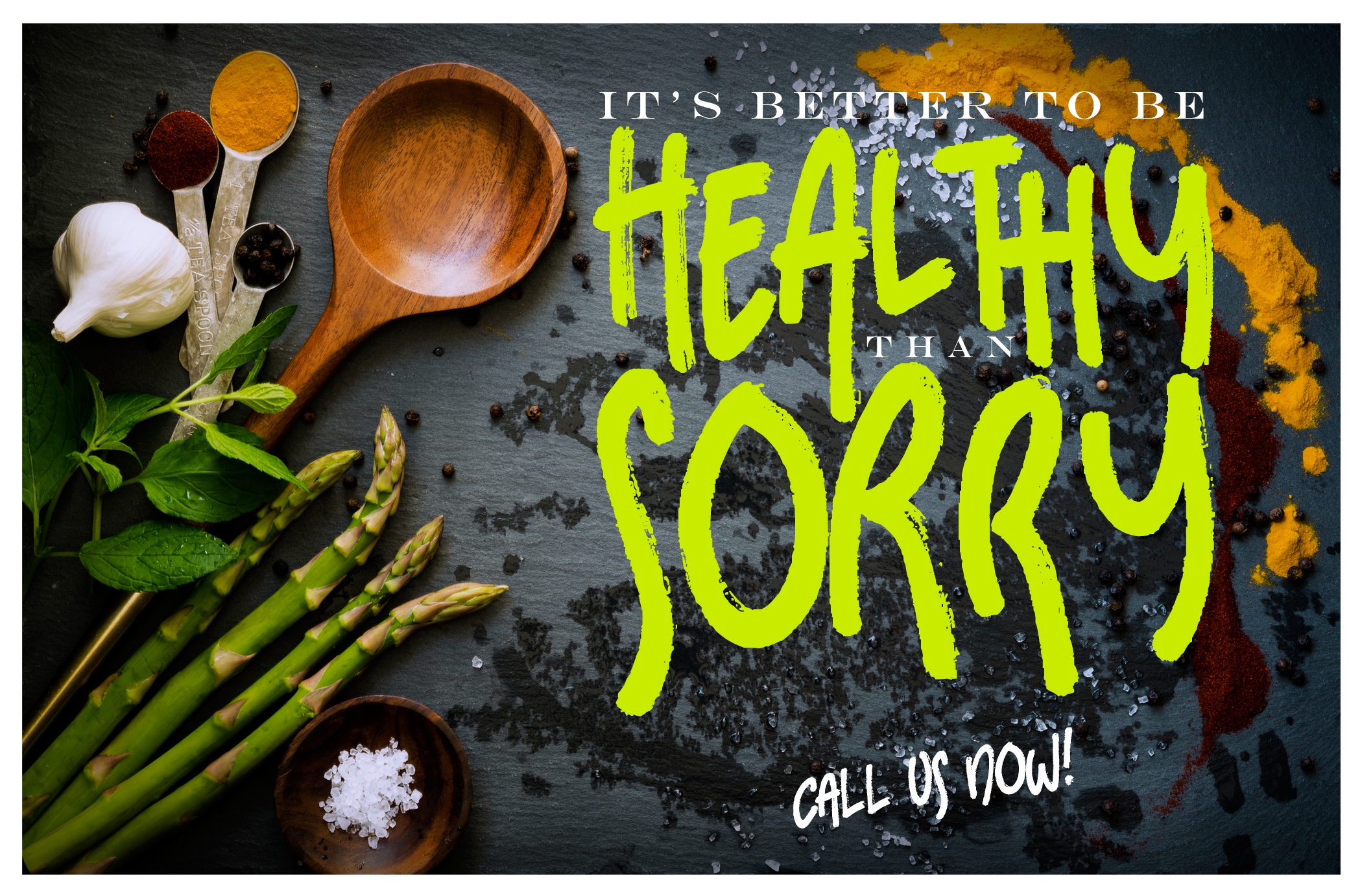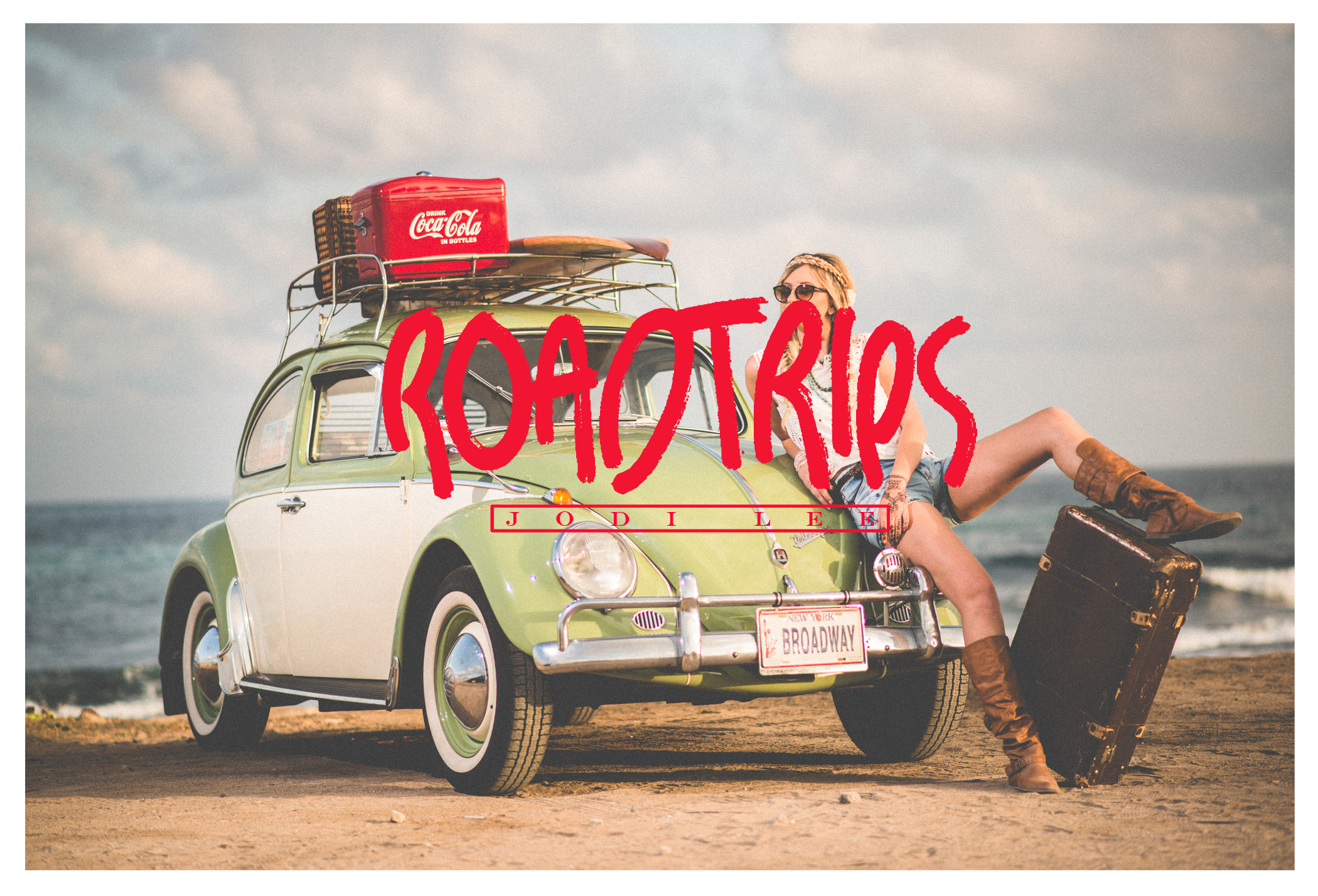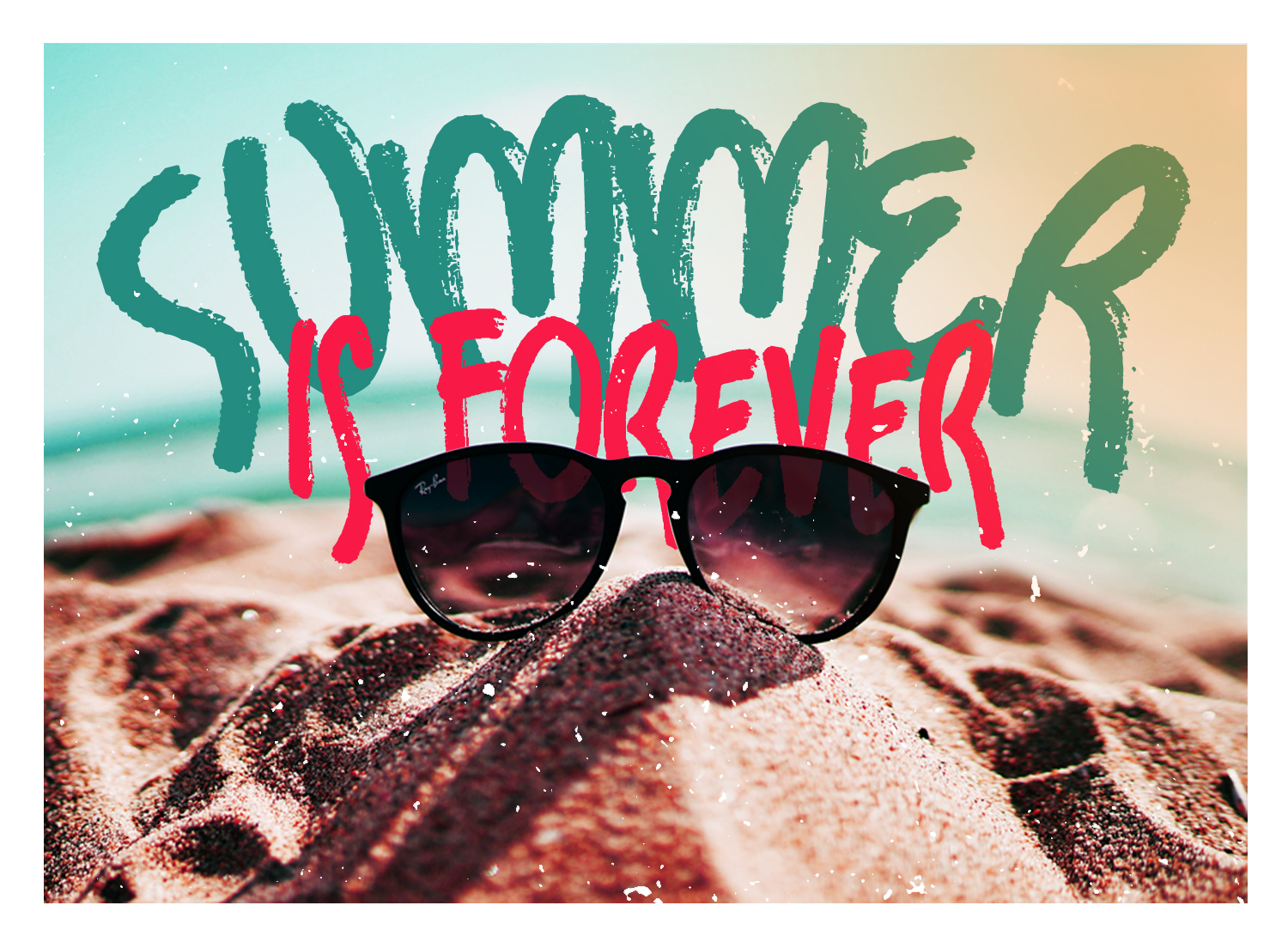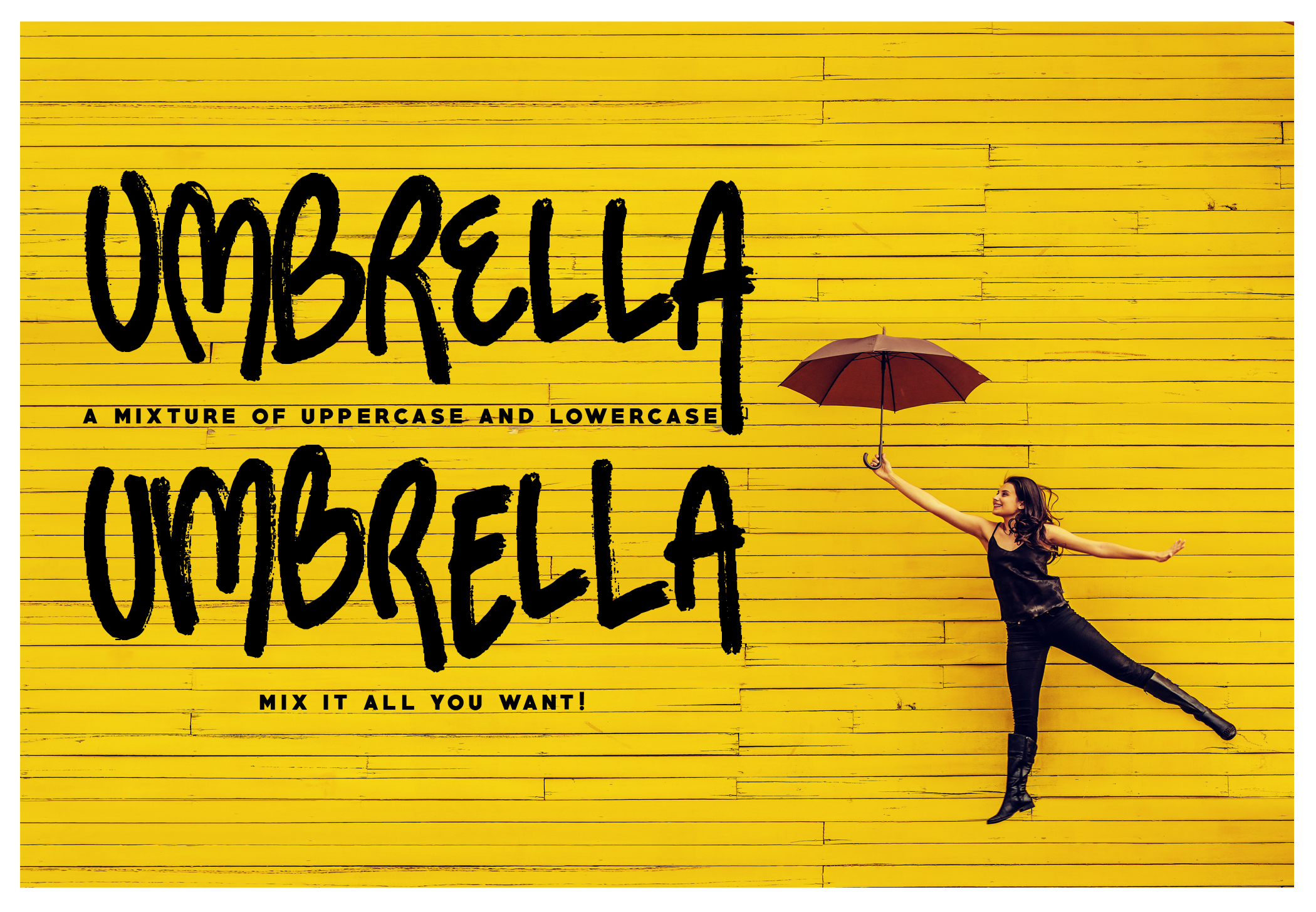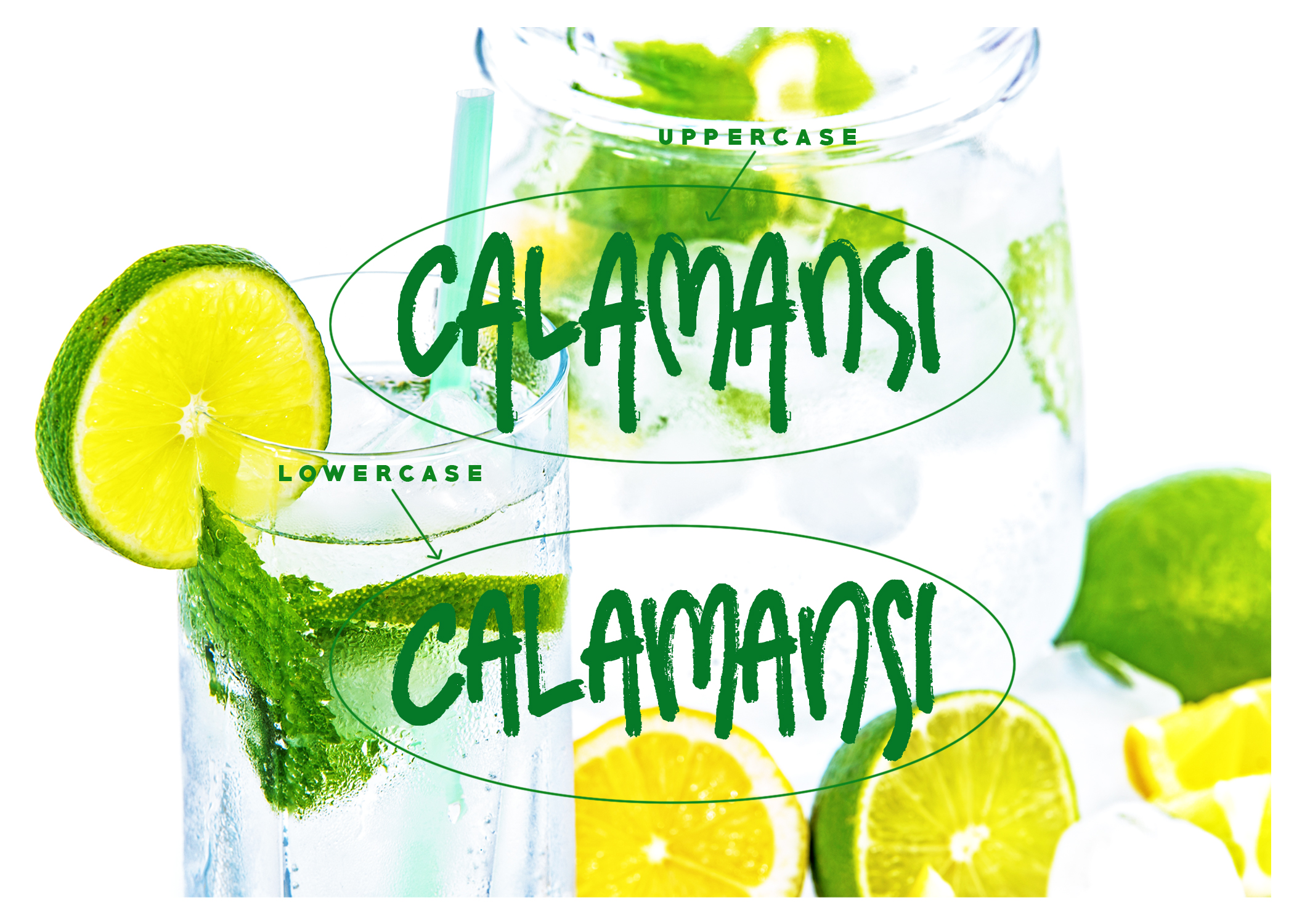
Sundaes on Mondays Font
About Sundaes on Mondays Font
Take a break and enjoy this Sundaes on Mondays font! Let your designs pop out with this rough, playful and readable typeface.
The uppercase and lowercase letters are made to complement each other. You can mix every letter until you get the look you desire.